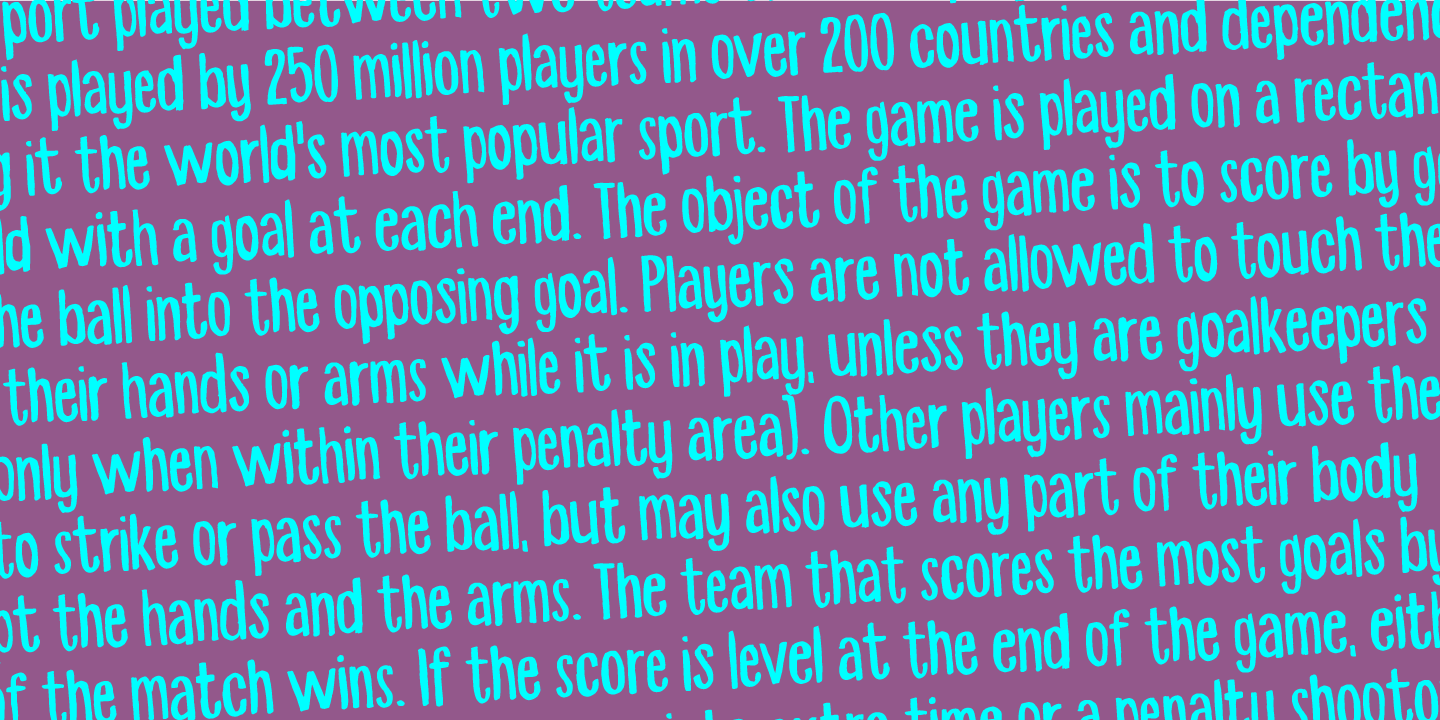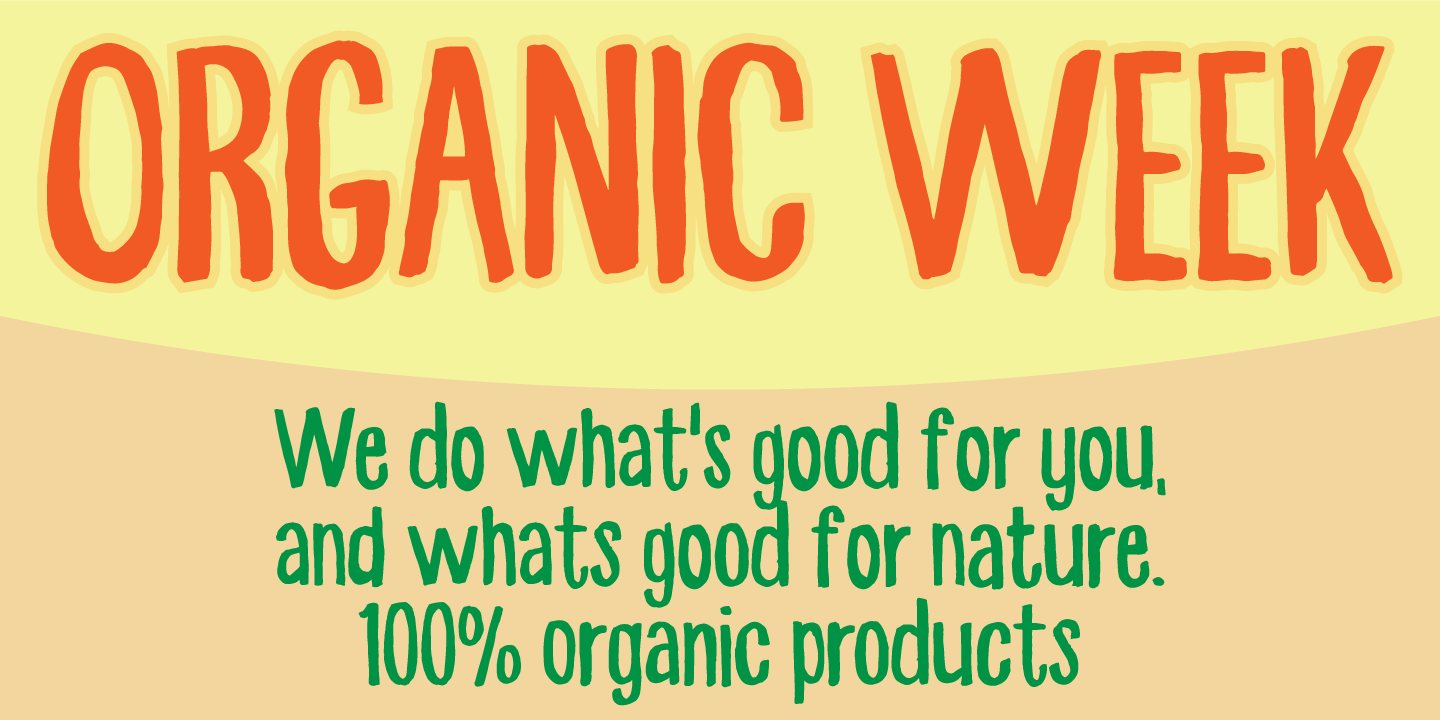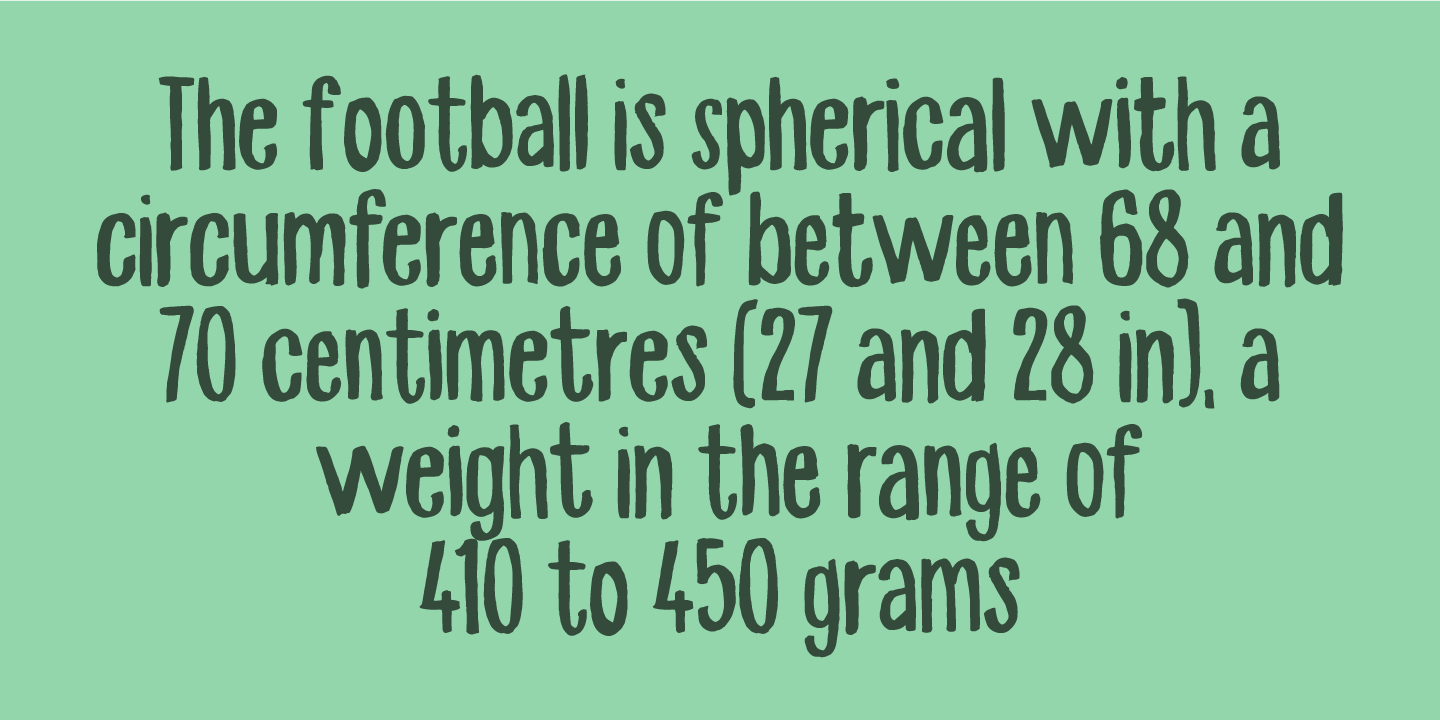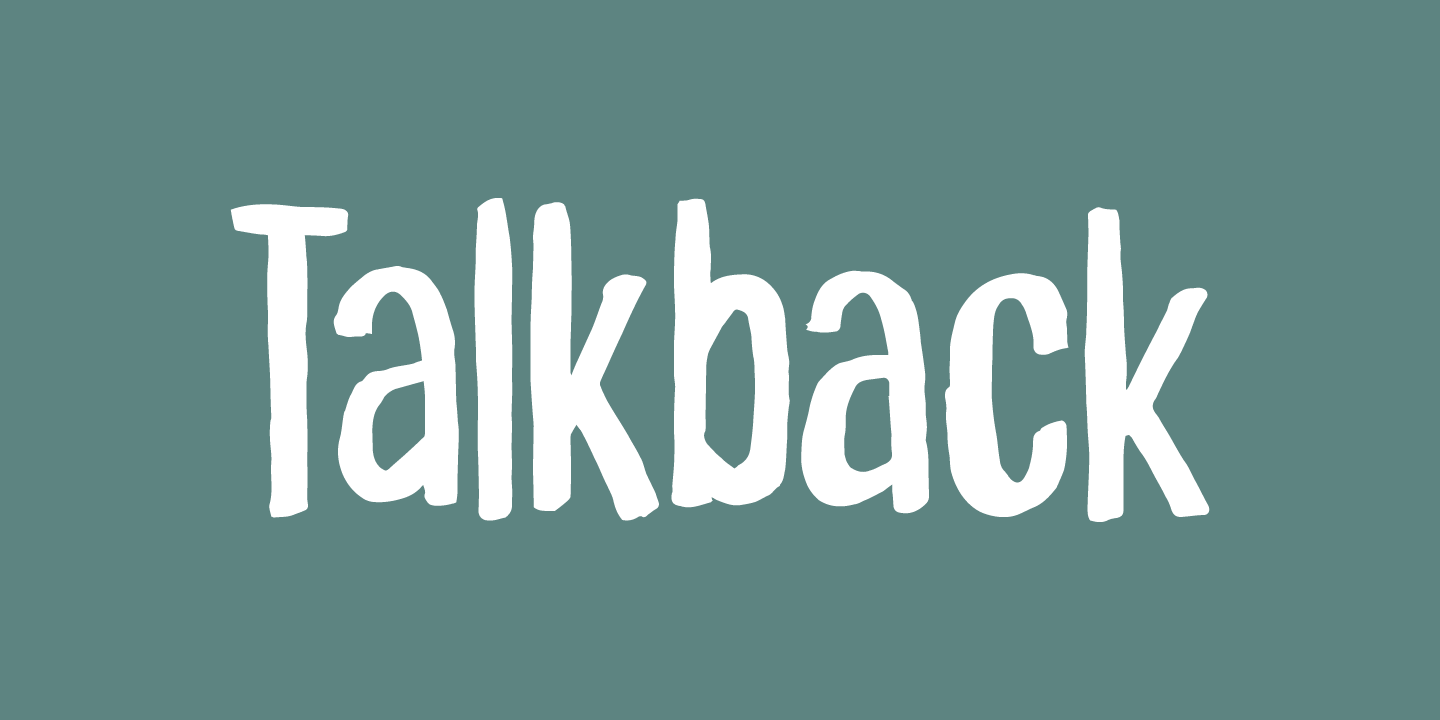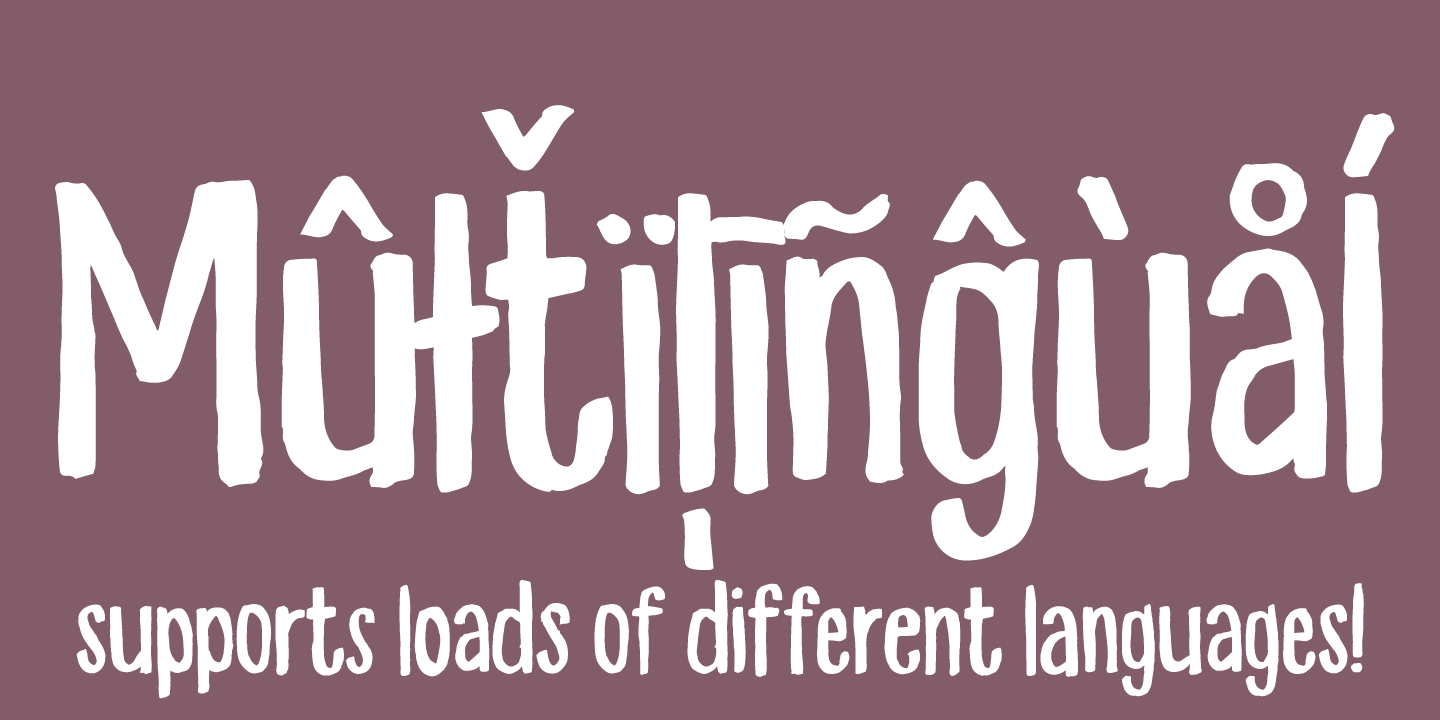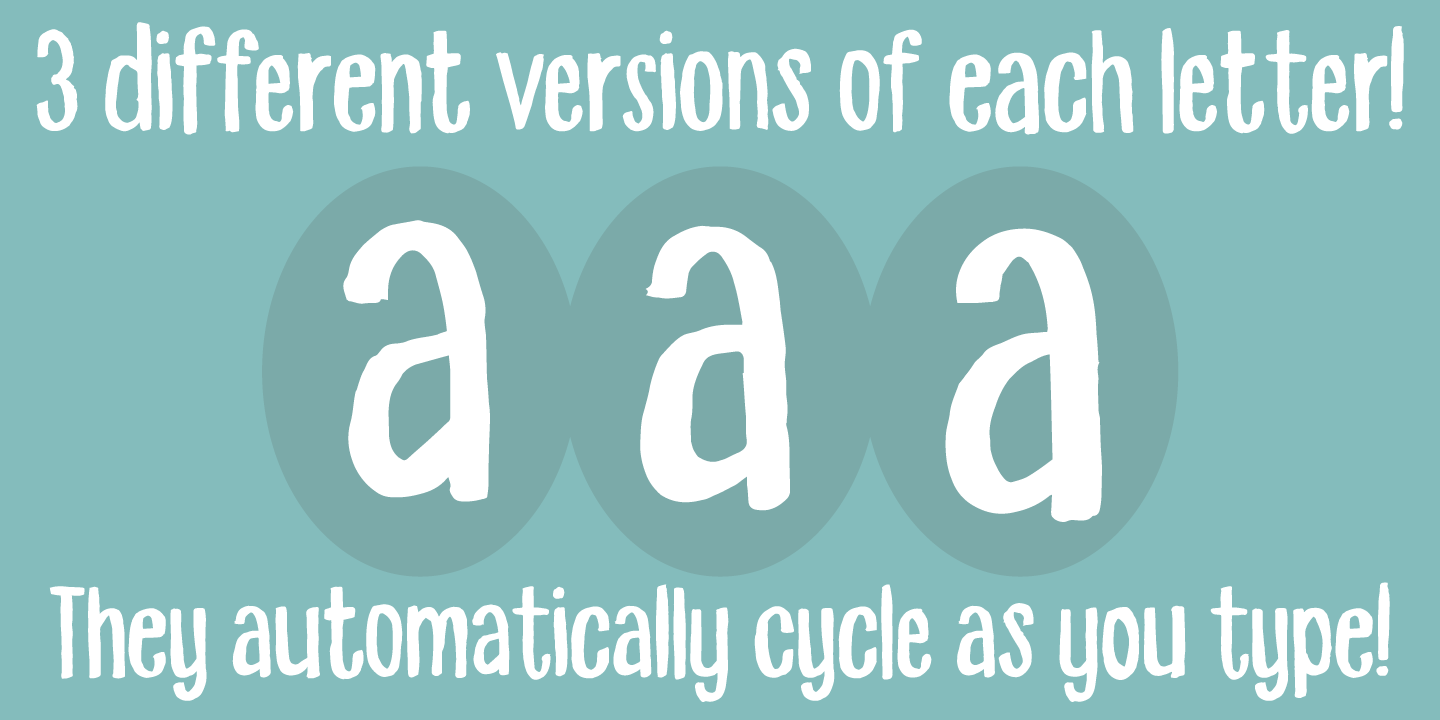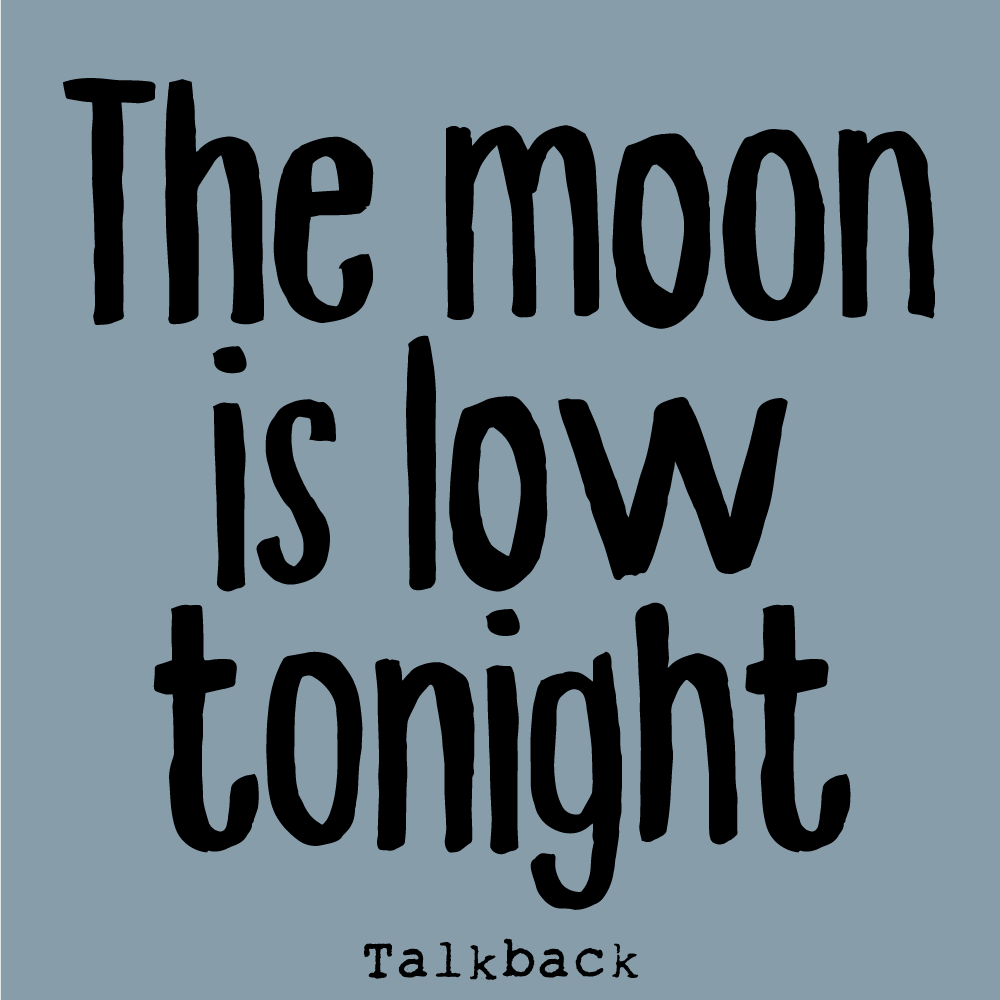
Talkback
Never underestimate the power of a lowercase brush font! Made to be legible for things like children's books, posters, postcards or even a birthday invitation!
The font has multilingual support as well as contextual alternates!